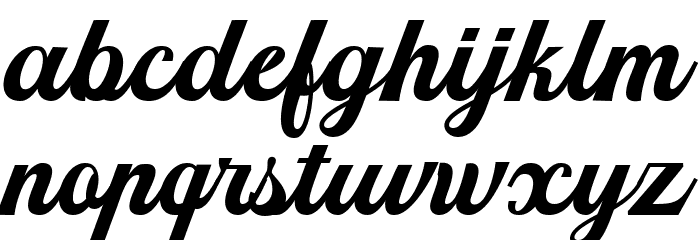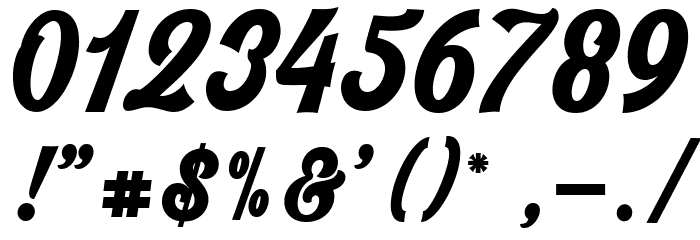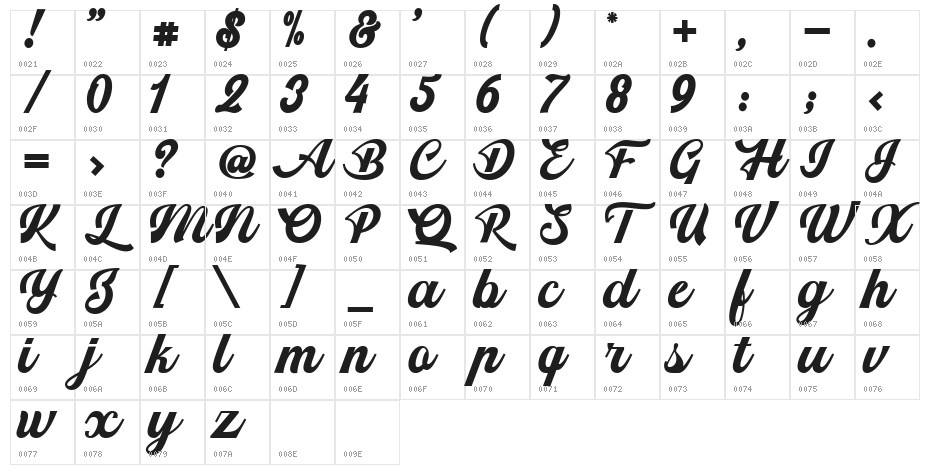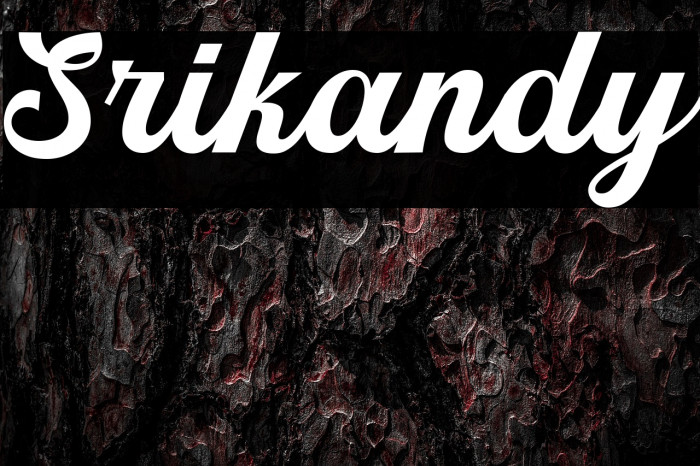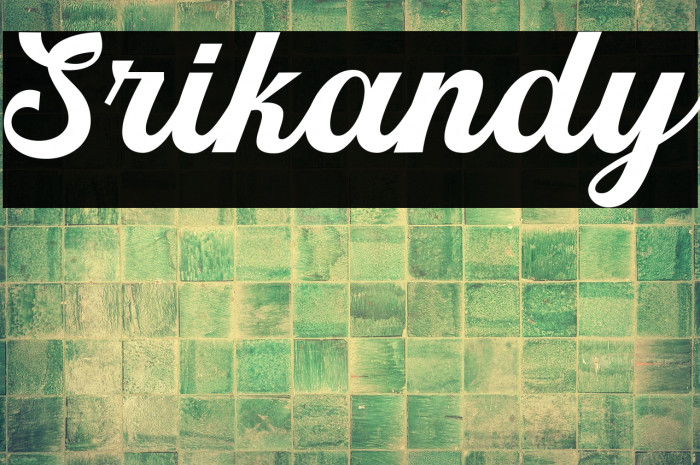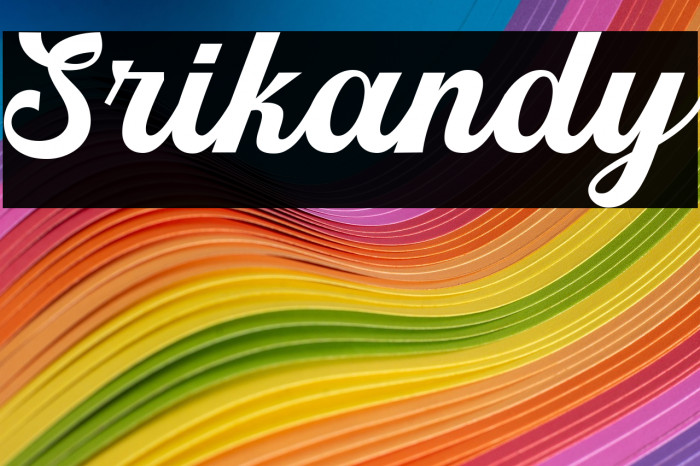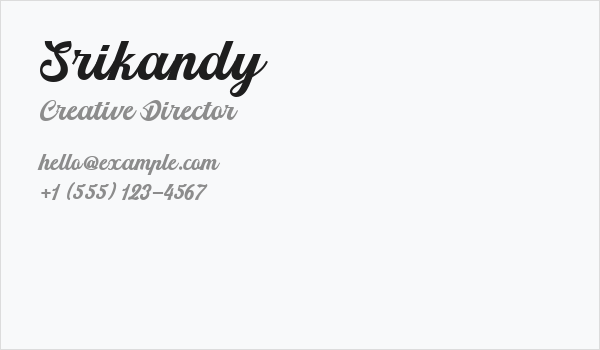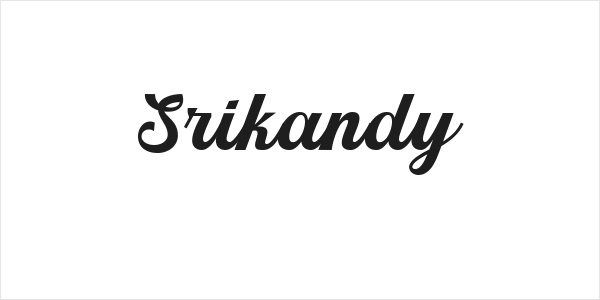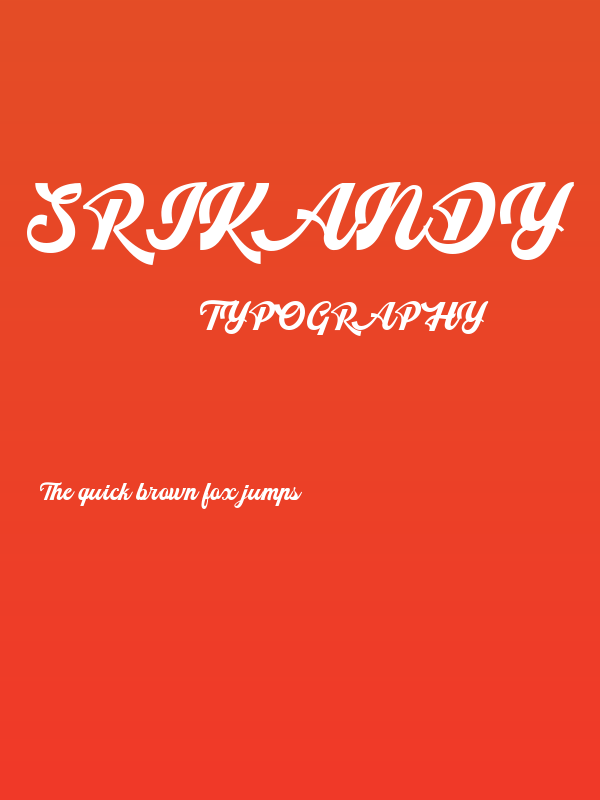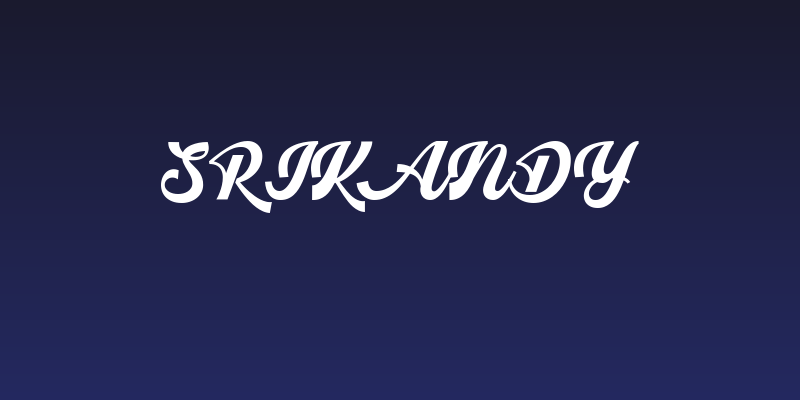
Srikandy Font
This font features a bold and elegant script style with a flowing, cursive design. The uppercase letters are ornate, with sweeping curves and flourishes that give a sense of movement and sophistication. The lowercase letters maintain a consistent style, with smooth, rounded edges and a slightly condensed form. The numbers are bold and clear, matching the overall aesthetic of the font. Special characters are included, each designed to complement the script style, making it versatile for various uses. The font's overall appearance is both classic and decorative, suitable for projects that require a touch of elegance and flair.
A bold, elegant script font with flowing cursive design.
- Proposed Projects: Ideal for wedding invitations, branding, logos, and elegant signage.
- Overall Style: Classic, Decorative
- Use Case: Logos, Invitations, Headlines